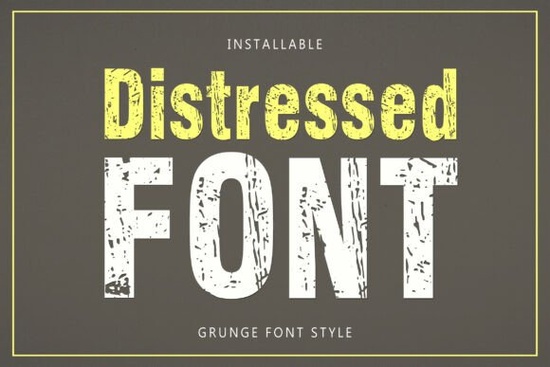
If you have ever scrolled through design marketplaces looking for typefaces that do not look polished and perfect, you understand why textures matter so much in branding. When your project needs to feel old-school, gritty, or hand-made, Distressed Font brings that authentic wear immediately. Unlike standard typefaces that look flat and clean, this family features rough edges and subtle imperfections designed to mimic age. You can use it for everything from t-shirt graphics to album covers without losing the main message. The key is finding a balance where the texture adds character but does not ruin readability.
Why choose a textured typeface for your brand?
In a sea of clean, minimalist designs, standing out often means adding a little grit. A worn aesthetic communicates history, durability, and a touch of rebellion. This approach works exceptionally well for small businesses trying to build a local reputation or hobbyists creating custom merchandise. Think about how people trust brands that seem established rather than brand-new. This font mimics the kind of paint peeling off an old warehouse sign or ink rubbing off fabric after years of washes. By choosing this style, you signal that your product has substance behind it.
However, not every project needs this heavy feel. If you are selling luxury skincare or baby products, a clean serif or sans-serif works better. You might consider something softer, like the gentle curves found in Jelly Puff, which feels organic and smooth. Alternatively, if your audience is looking for high-energy entertainment, a playful option like Comic Pop could capture attention better than anything rugged. The goal is matching the typography to the emotional response you want from your customer.
When working with clothing lines or military-themed events, the texture becomes crucial. It reinforces the message without you needing to add extra imagery. Imagine a logo for a motorcycle club or a camping gear store where the text looks like it has seen the road. That level of detail happens when you pick the right weights and styles within the set. Many creators worry that too much texture makes letters unreadable from a distance, but these files are usually optimized to keep the core shapes visible.
Where can you apply this style successfully?
The versatility of this font makes it a favorite among print-on-demand sellers. Platforms like Redbubble and Printify allow users to upload designs easily, and having a file that scales well is a huge advantage. Because the texture is built into the outlines or created via overlays, it tends to hold up well across different backgrounds. Whether you are printing on dark navy shirts or light cream paper, the contrast adjusts to remain legible.
Beyond merchandise, this type works beautifully for event posters. Concert flyers benefit from the grunge vibe, especially for rock, punk, or metal genres. The slight irregularity in the strokes gives a dynamic energy that straight lines lack. Even for corporate presentations where you want to show a historical timeline or a legacy project, it serves as an excellent header font. Just remember to pair it with a simpler body font to ensure the text is easy to read on screen.
Sometimes you might want to mix trends. If you need a bit more sparkle for a holiday design, exploring Gemstone fonts could complement the rougher edges perfectly. Conversely, if you are doing a sports jersey mockup, the structured blocks of Vintage Varsity offer a classic collegiate alternative. For female-oriented fashion brands that want a tougher edge, Girly Pop provides a distinct contrast between the feminine and the rugged.
Digital downloads come with specific usage rights that dictate how you can sell items made with the font. Always read the commercial license agreement carefully. Most bundles for creative platforms allow you to create physical products like hats and mugs, but some restrict digital resale. As a crafter, you do not want to accidentally violate copyright rules by including the raw font file in a download package.
It is also important to know the file formats included. Ideally, you want access to both OTF and TTF files. These formats ensure compatibility with software like Adobe Photoshop, Illustrator, Inkscape, or Cricut Design Space. Some fonts also include OpenType features like swash ornaments or alternate characters. Checking these details saves hours of troubleshooting later. If you plan to use the text in video editing software, verify that the kerning is tight enough so gaps do not appear weirdly large during animation.
To see exactly what is available in the collection, you can view the full selection directly at Distressed Font. This search leads you to the creator's page where you can preview live samples and test different combinations before downloading. Seeing the glyphs in motion helps you decide if it fits your workflow.
Is this font compatible with my cutting machine?
Crafters who use Silhouette Cameo or Cricut machines often ask if a font will cut cleanly. Texture-heavy fonts sometimes require thicker cuts because the fine details might tear if the line width is too thin. Look for the specific "cut table" or guide usually provided in the package zip file. If the designer offers a version specifically for single-line cutting, take advantage of that. Otherwise, you may need to simplify the layers in your vector software before sending the job to the cutter.
Another consideration is how the texture affects the cut pressure. On materials like iron-on vinyl, a heavily distressed texture can bleed together if the heat press temperature is too high. Test a small swatch on scrap material first. This ensures the adhesive layer melts correctly without melting into the design itself. Planning ahead prevents wasted materials and frustrated clients.
- Pair this font with a simple, non-distracting body text.